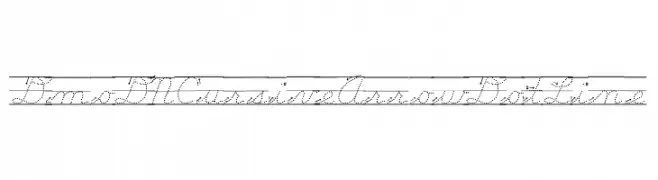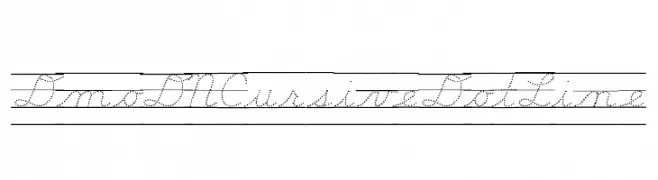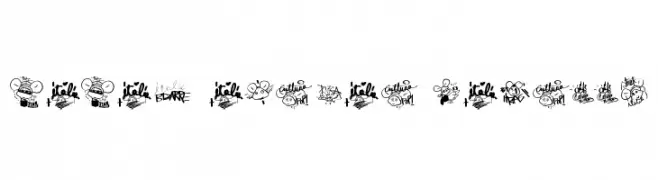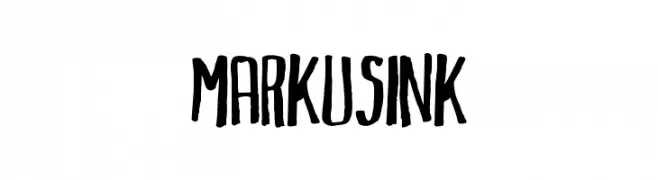
An expressive, brush-like font with dynamic strokes and artistic flair.
A mosaic-inspired decorative font with a textured, artistic appearance.
A dotted cursive font designed for handwriting practice and education.
A dotted cursive font ideal for handwriting practice.
A bold, hand-drawn font with a brush stroke style and playful character.
A whimsical and artistic font with playful, doodle-like characters.